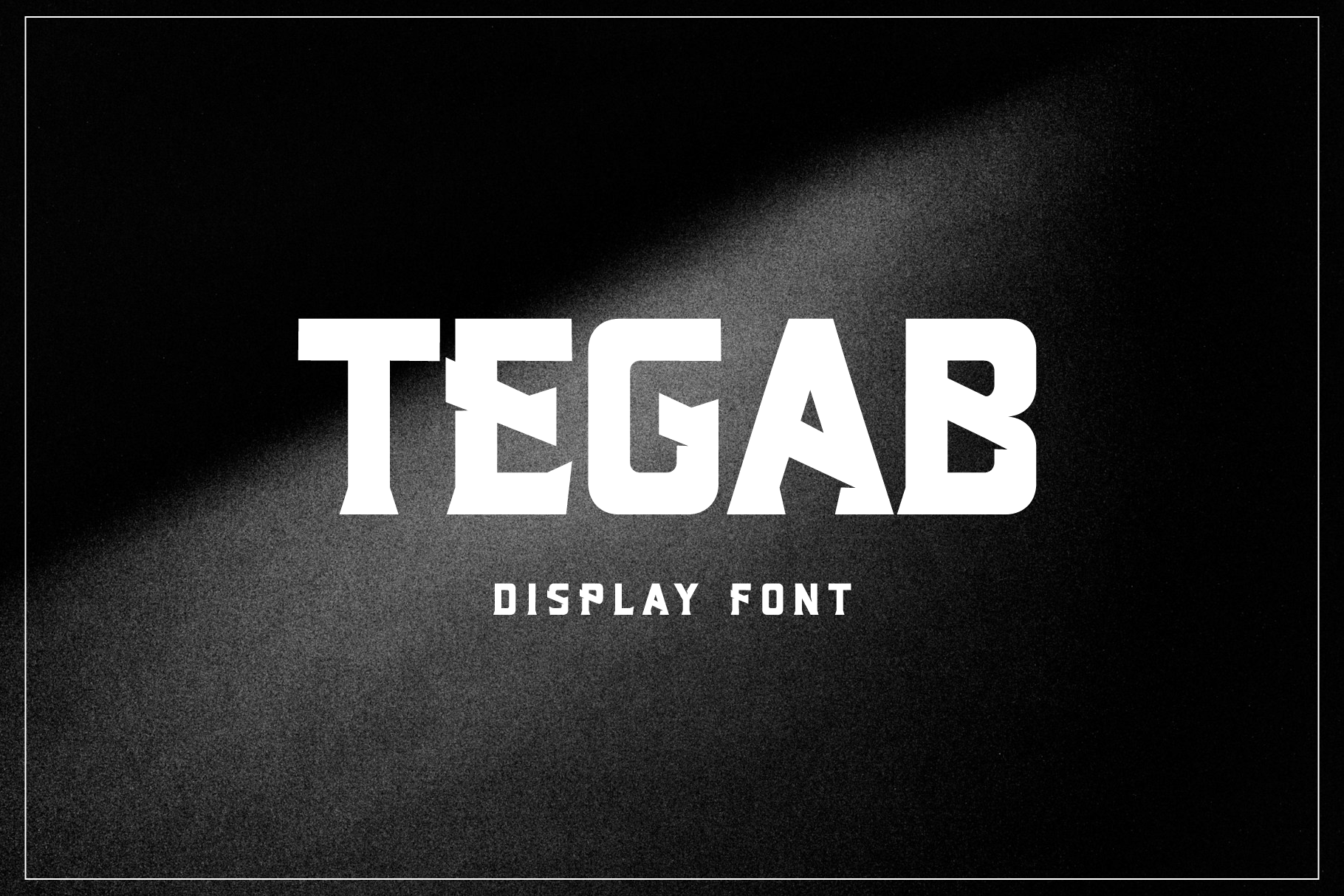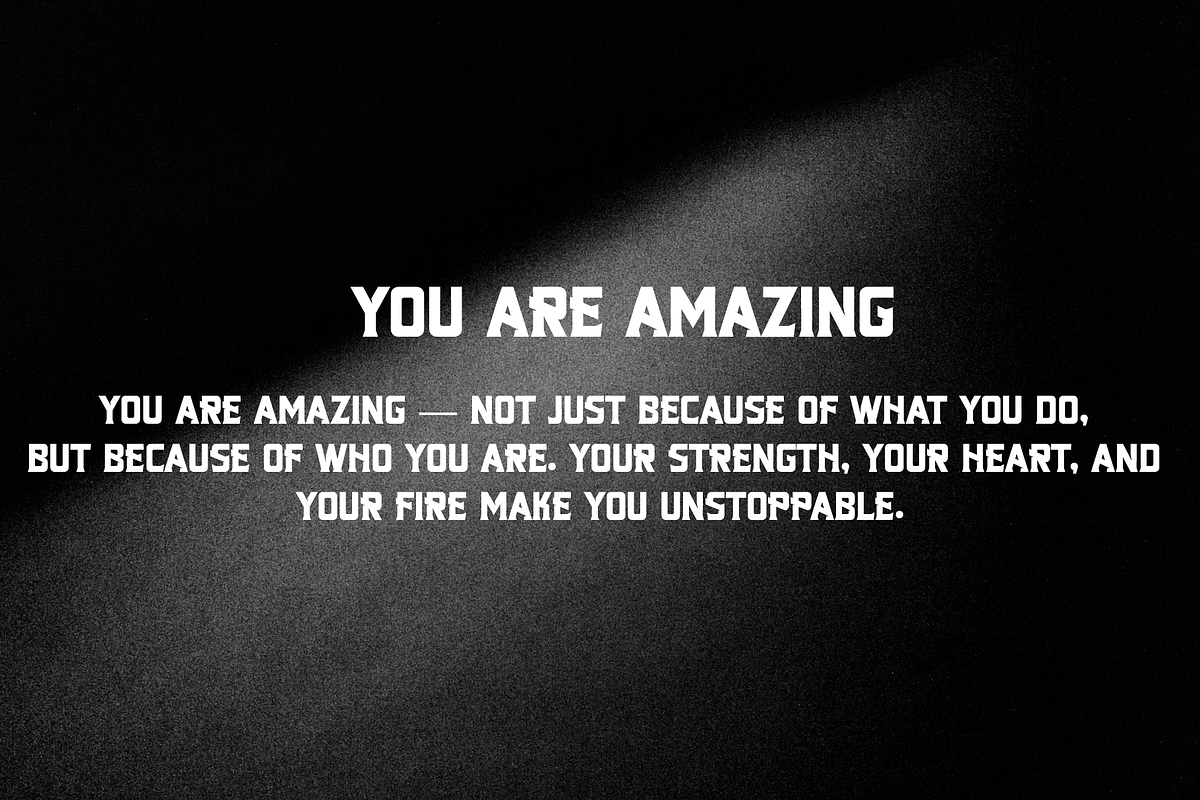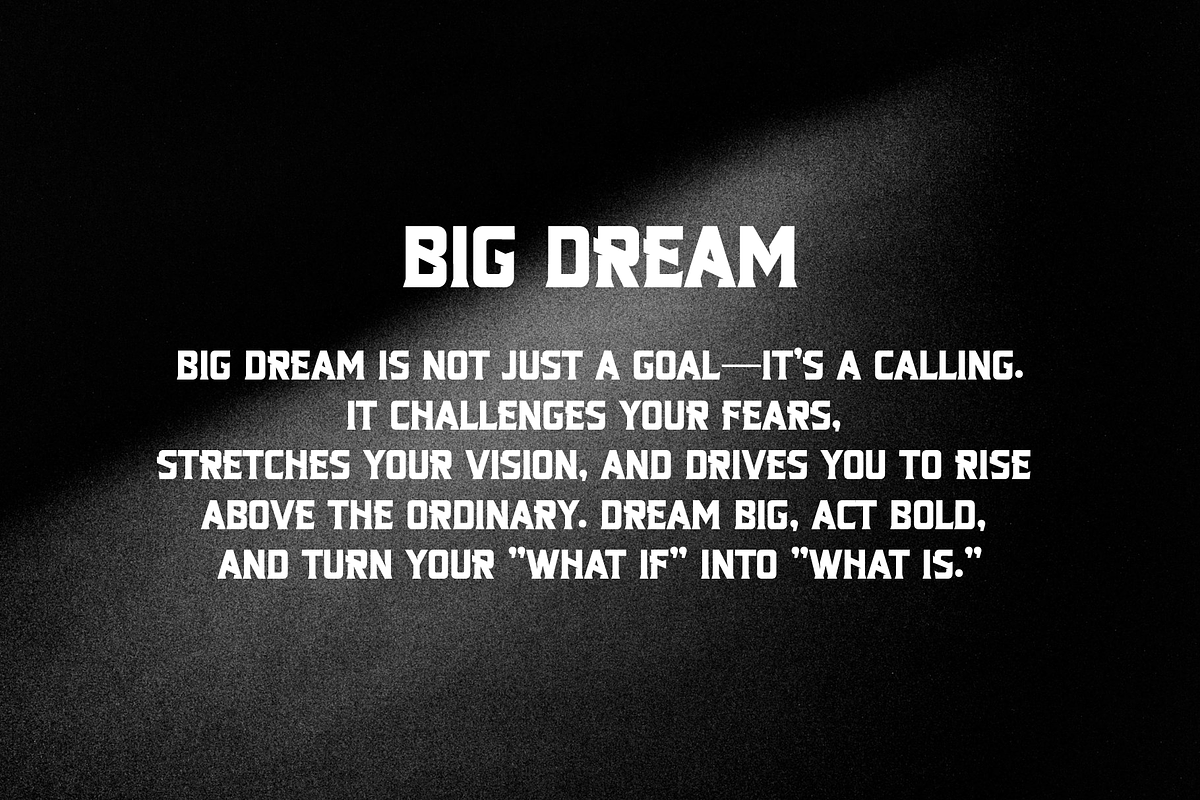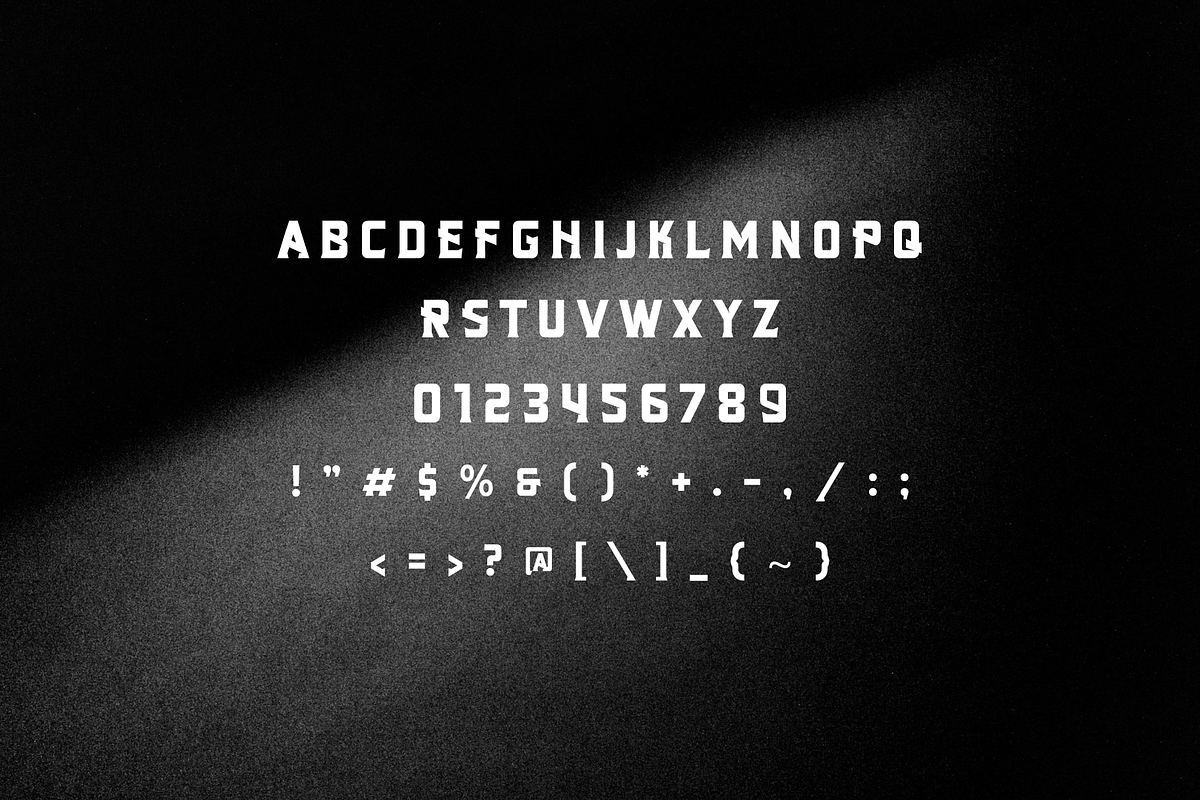
Tegab Modern Display Font
TEGAB is a new addition to the world of typography. This font is casual, friendly, and perfect for any kind of creative endeavor you may be using.
Contains all capital letters, numbers, and basic punctuation.